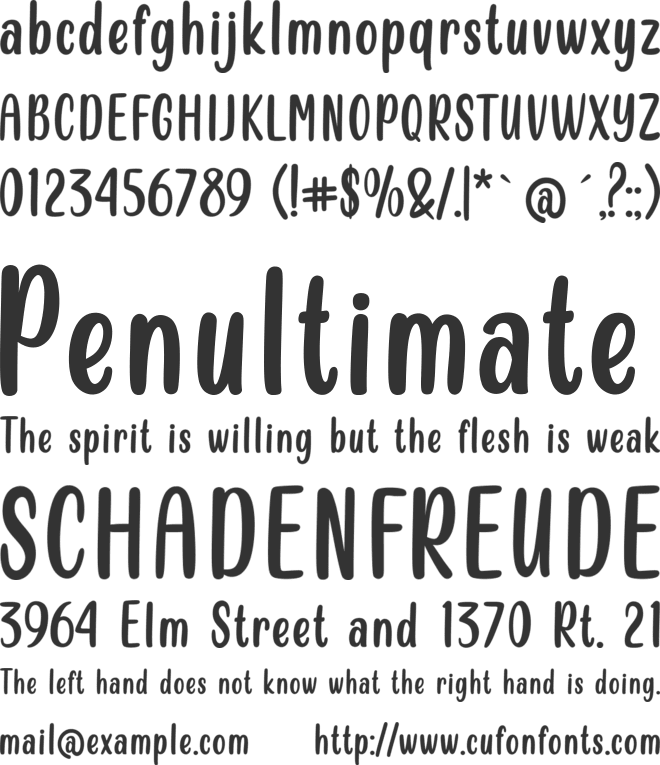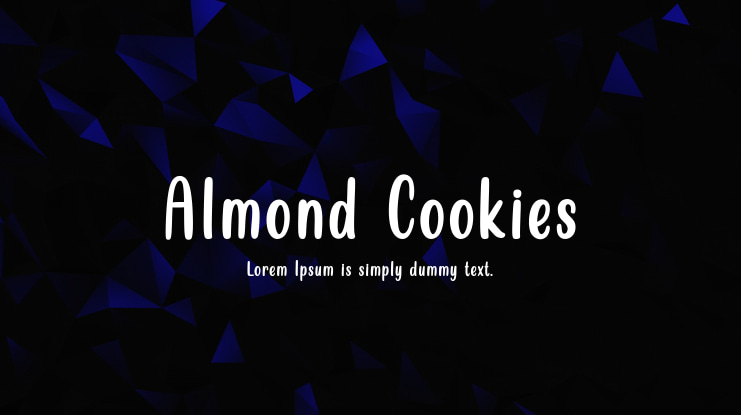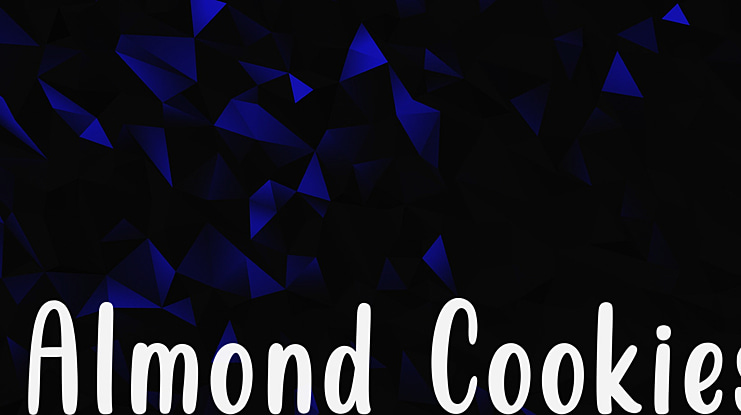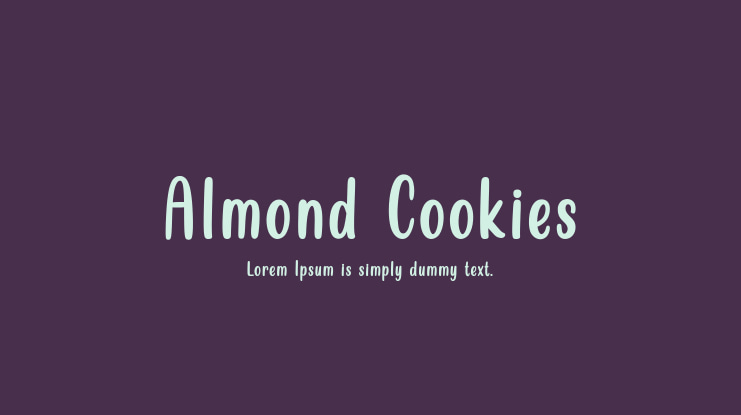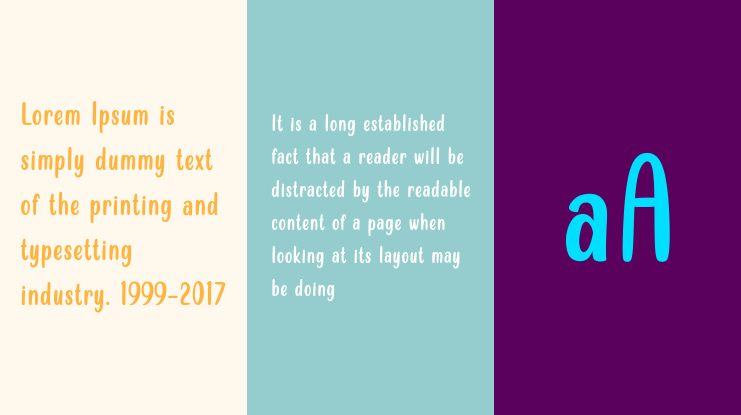
Almond Cookies Font
Almond Cookies is a unique and interesting handwritten font.
This font will fit a wide pool of designs.
Fall in love with its simple and cute look and use it to create spectacular designs!